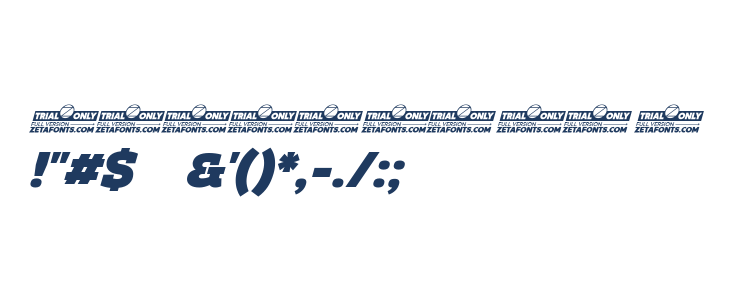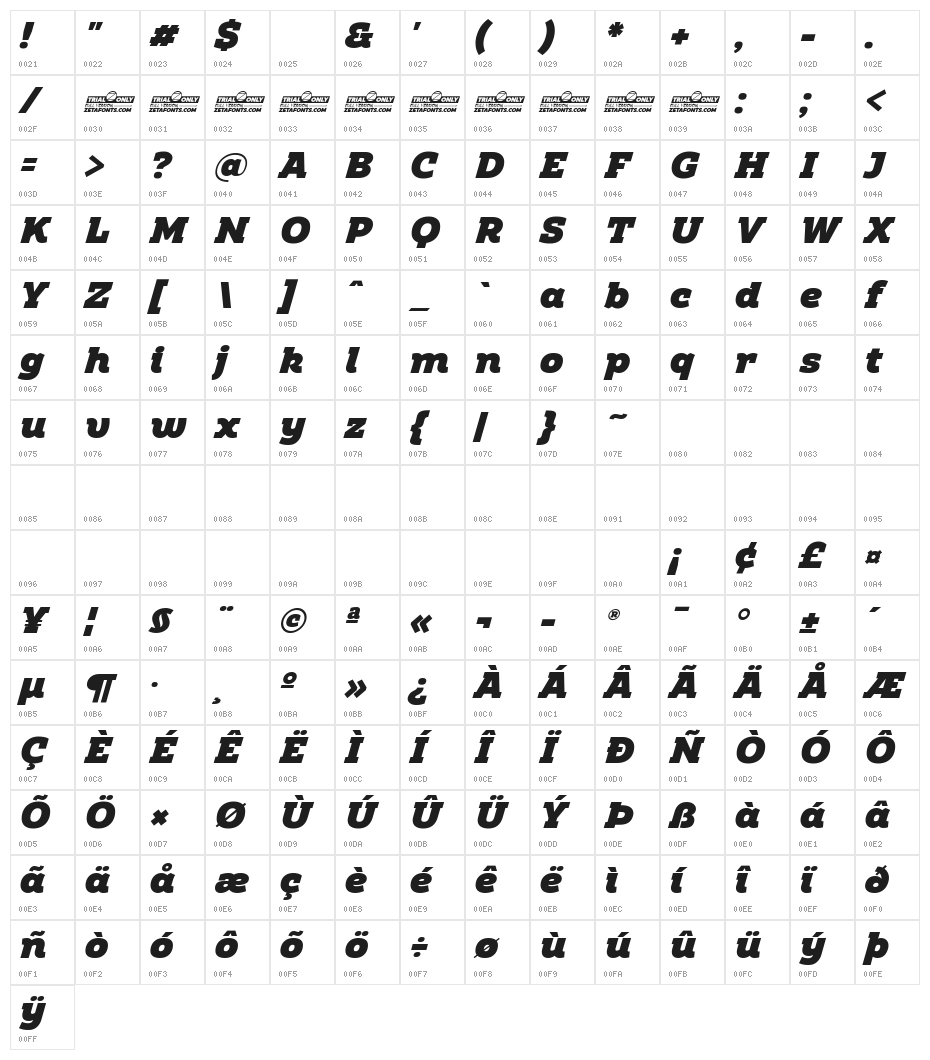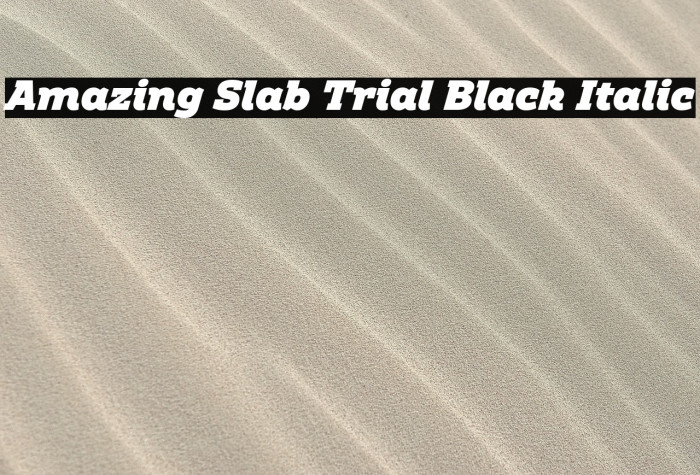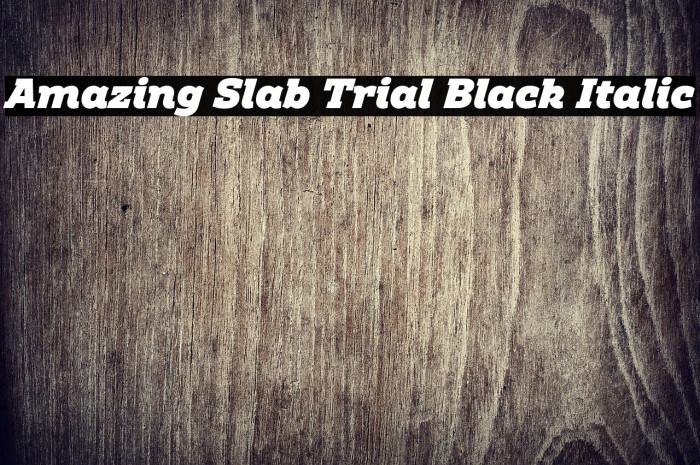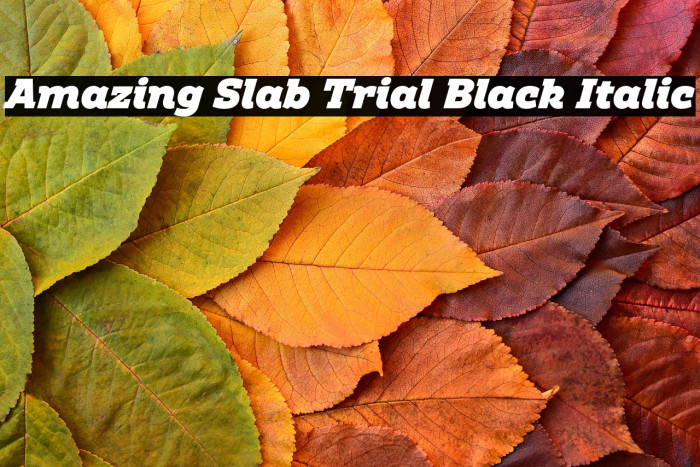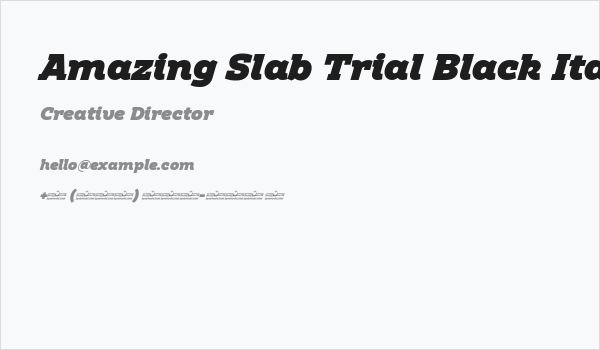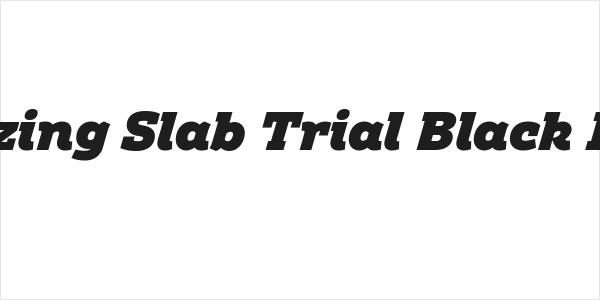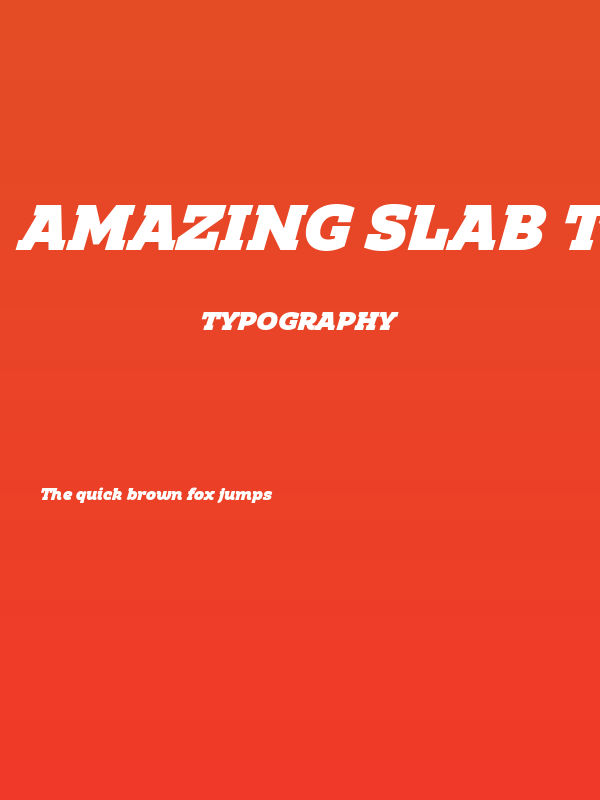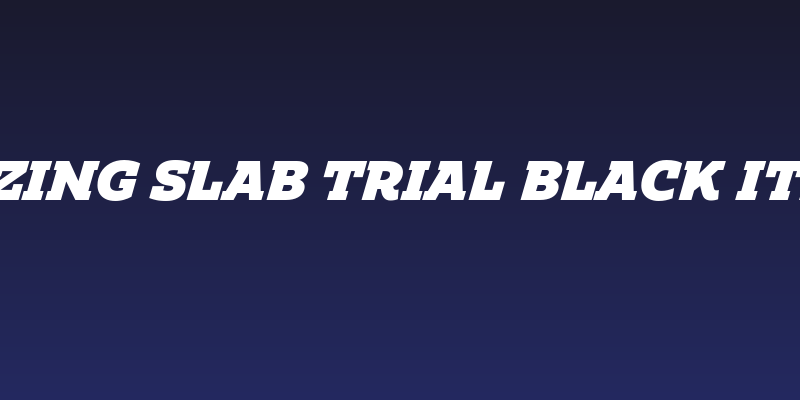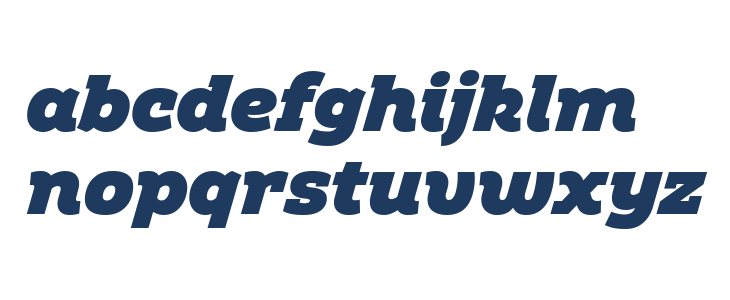
Amazing Slab Trial Black Italic Font
Amazing Slab Trial Black Italic Description
This font features a bold and dynamic slab serif style with a pronounced italic slant, giving it a strong and assertive presence. The characters are robust and impactful, with thick strokes that convey a sense of confidence and power. The uppercase letters are particularly striking, with a commanding presence that makes them ideal for attention-grabbing headlines. The lowercase letters maintain the same boldness, ensuring consistency throughout. The numbers and special characters are equally bold, making them suitable for a variety of design needs. The overall design is modern yet retains a classic slab serif charm, making it versatile for both contemporary and traditional projects.
| Proposed Projects | Ideal for branding, advertising, posters, and headlines where a bold statement is needed. |